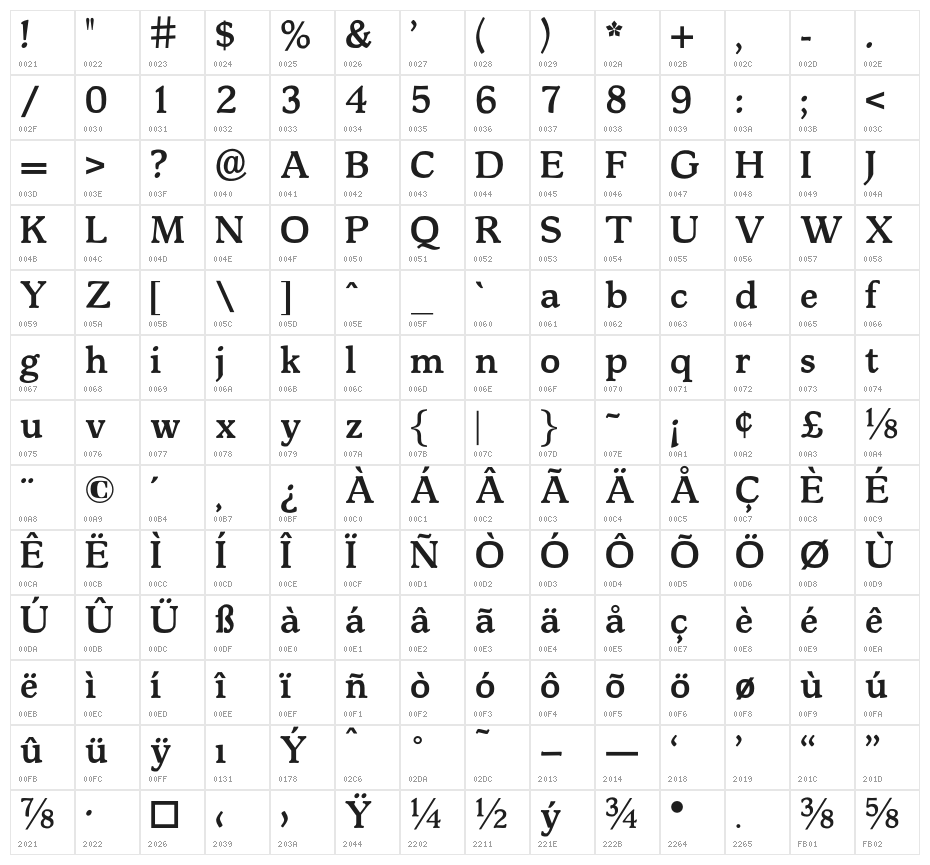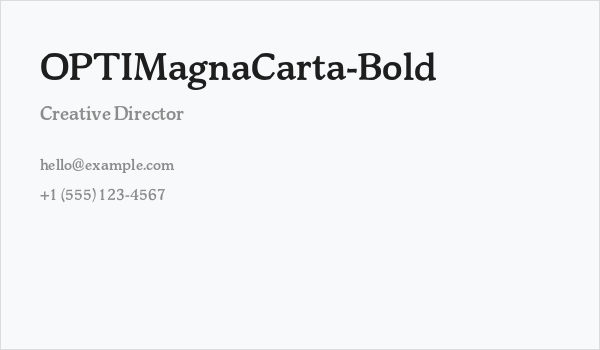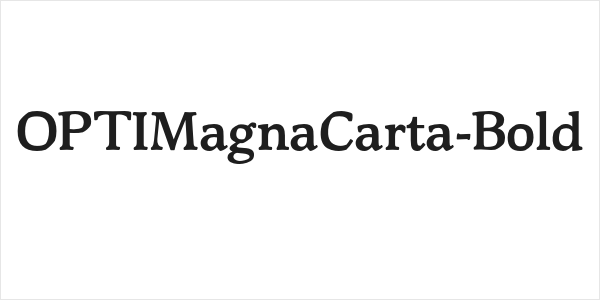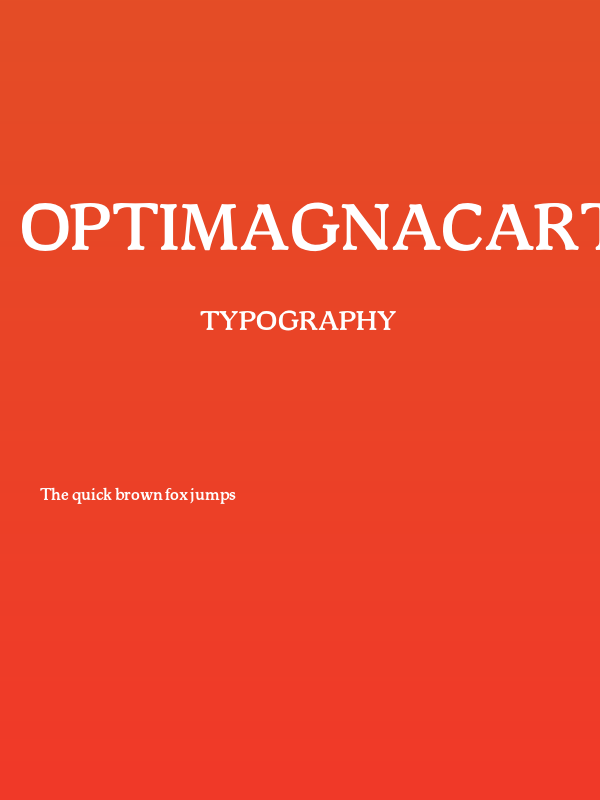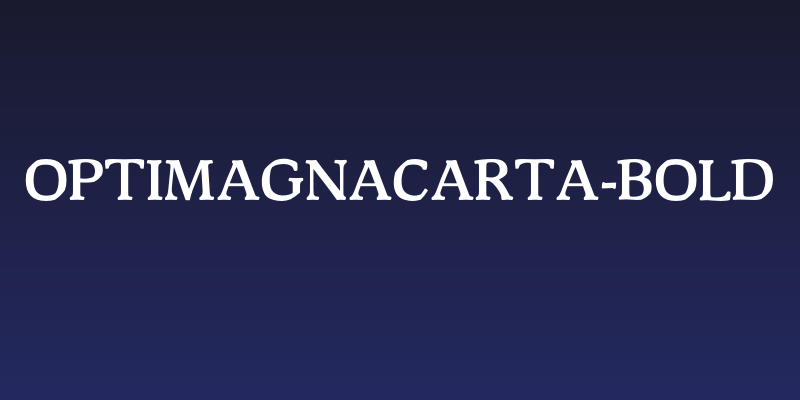
OPTIMagnaCarta-Bold Font
OPTIMagnaCarta-Bold Description
This font features a bold and classic serif style with strong, pronounced serifs that give it a traditional and authoritative appearance. The characters are well-defined with a medium contrast between thick and thin strokes, providing a clear and readable text. The uppercase letters are slightly taller, adding to the font's commanding presence, while the lowercase letters maintain a consistent and harmonious design. The numerals are proportional, ensuring readability in various contexts. Special characters are included, enhancing its versatility for different types of content.
Overall StyleClassic
Proposed ProjectsIdeal for formal documents, book titles, branding, and editorial design.